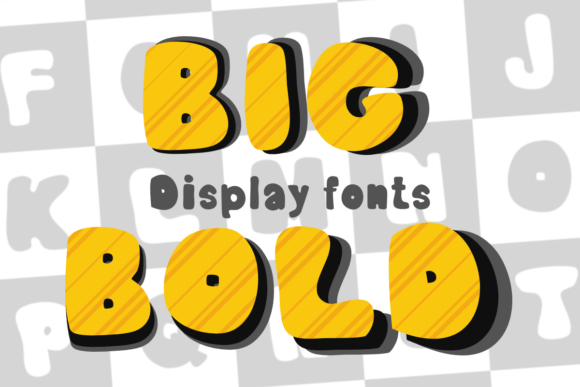
**Introducing ‘BigBold’ Font:** The Epitome of Strength and Confidence
Prepare to be captivated by ‘BigBold’, a display font that embodies power, assertiveness, and an unwavering sense of confidence. Its commanding presence and bold aesthetics make it the ultimate choice for leaving an indelible mark on your audience.
**Forging an Impactful Design Legacy:**
With ‘BigBold’ as your creative ally, crafting attention-grabbing headlines and designing impactful branding materials becomes effortless. This font commands attention, making your messages impossible to ignore. Whether you’re creating posters, flyers, or social media graphics, ‘BigBold’ ensures your designs stand out from the ordinary.
**Beyond Aesthetics: A Lexicon of Strength:**
‘BigBold’ transcends mere aesthetics, becoming a visual representation of strength and determination. Its bold lines and confident curves create a visual symphony that exudes power and conviction. By incorporating ‘BigBold’ into your designs, you赋予 them a sense of authority and purpose, leaving a lasting impression on your audience.
**The Perfect Font for Retina Display:**
‘BigBold’ is meticulously crafted to deliver exceptional clarity and sharpness on high-resolution retina displays. Its every curve and stroke is rendered with precision, ensuring your designs look stunning on any digital platform. From website headers to app interfaces, ‘BigBold’ guarantees your creations shine with pixel-perfect brilliance.
**Take Your Designs to the Next Level:**
With ‘BigBold’, mediocrity is a thing of the past. Its bold and commanding presence elevates your designs, propelling them to new heights of creativity and impact. Embrace the power of ‘BigBold’ and watch as your designs transform into captivating masterpieces that leave your audience in awe.